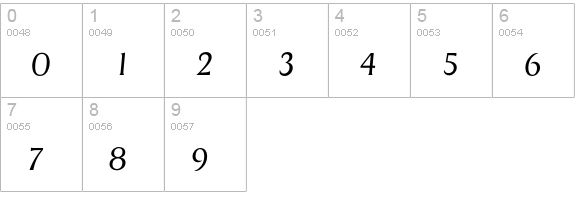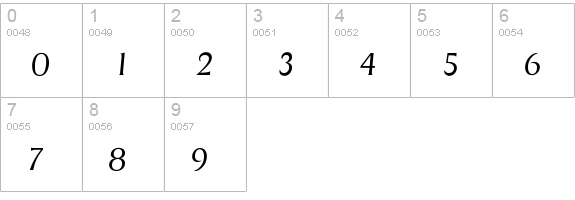
Dragon-XlightIta is a stunning and elegant font that exudes a sense of sophistication and style. With its delicate and refined letterforms, this typeface is perfect for adding a touch of class to any design project. The slim and graceful characters of Dragon-XlightIta give off a sense of modernity and grace, making it a versatile choice for a wide range of applications. What sets Dragon-XlightIta apart is not only its aesthetic appeal but also its availability as a free font. You can easily download Dragon-XlightIta for free at FontsMarket.com, making it accessible to designers and creatives looking to enhance their projects without breaking the bank. Whether you're working on a branding project, a website design, or any other creative endeavor, Dragon-XlightIta is sure to elevate your work with its timeless charm and sophistication. Download this exquisite font today and see how it can transform your designs with its unique flair and elegance.